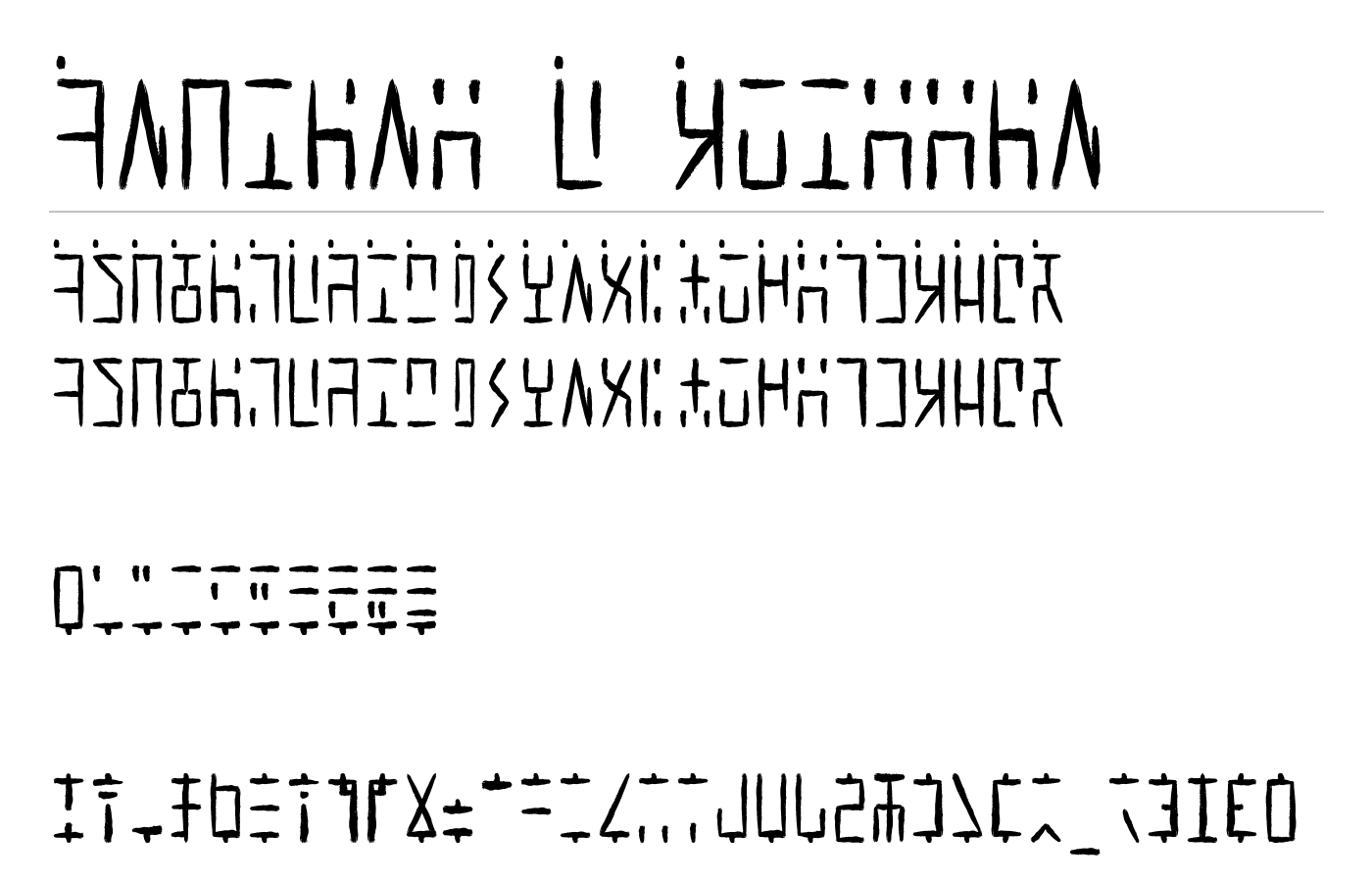
Ancient G Written Font is a unique, hand-drawn typeface with an ancient, glyph-like appearance that evokes a mysterious and historical vibe. Its irregular, narrow forms and distinct, geometric strokes give it an archaic, almost cryptic feel, making it perfect for creative projects that need a touch of the exotic or the unknown. This font works best in display uses like logos, posters, or themed designs where a sense of enigma and antiquity is desired.
Ancient G Written Font
About Ancient G Written Font